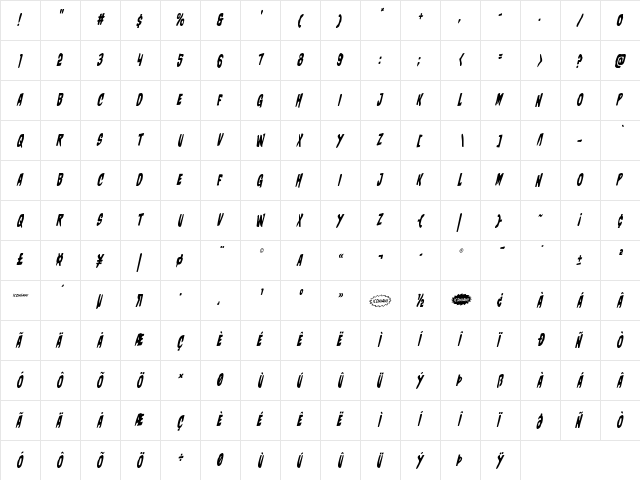
Charmling Condensed Italic Font Preview
Design Context for Charmling Condensed Italic Typeface
Charmling Condensed Italic is a composed and adaptable typeface that performs quietly and consistently across a wide range of design contexts. The dynamic lean of this cut emphasises speed and emphasis in any layout. Its narrow stance lets it pack a punch even in space-constrained designs.